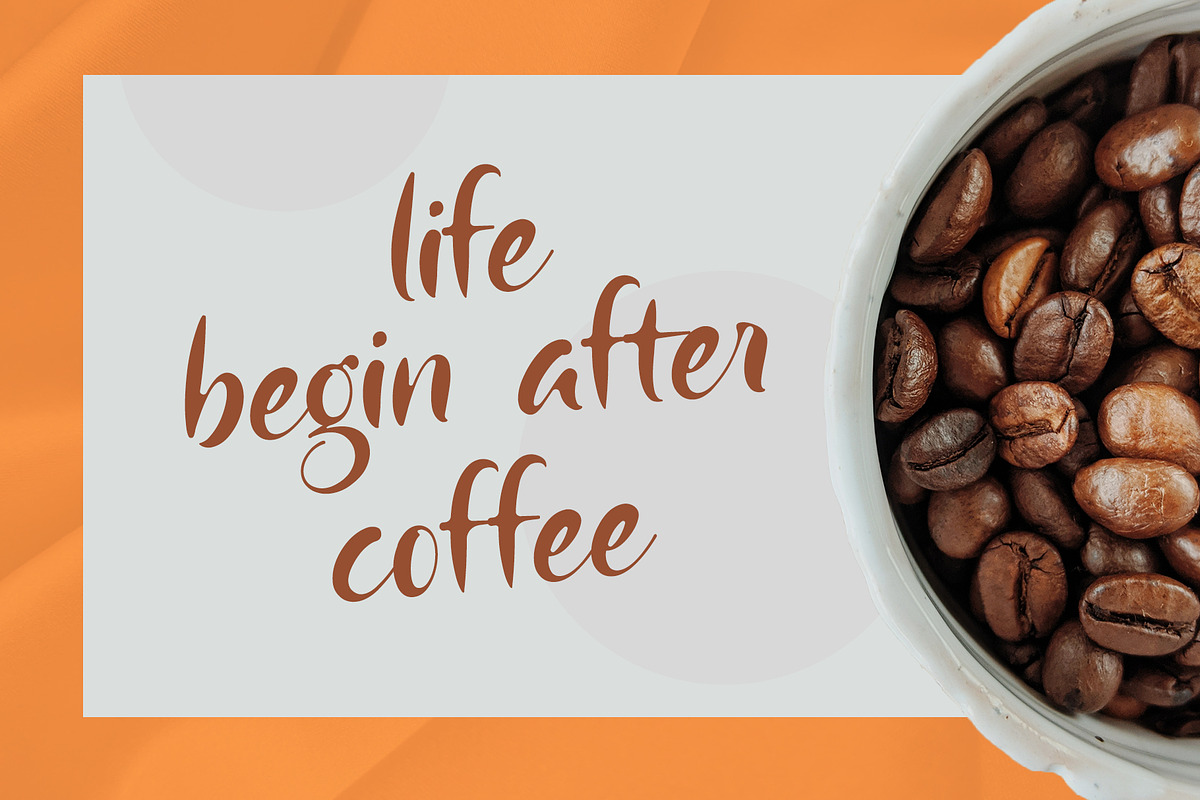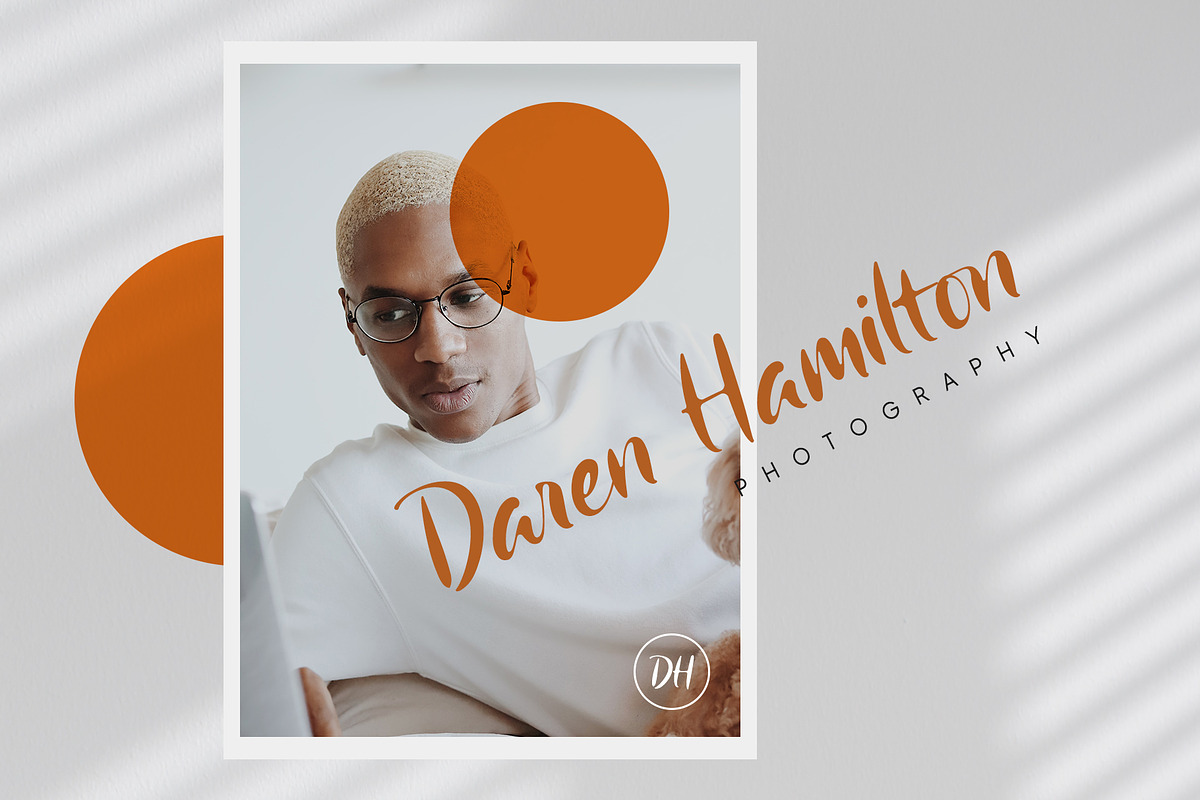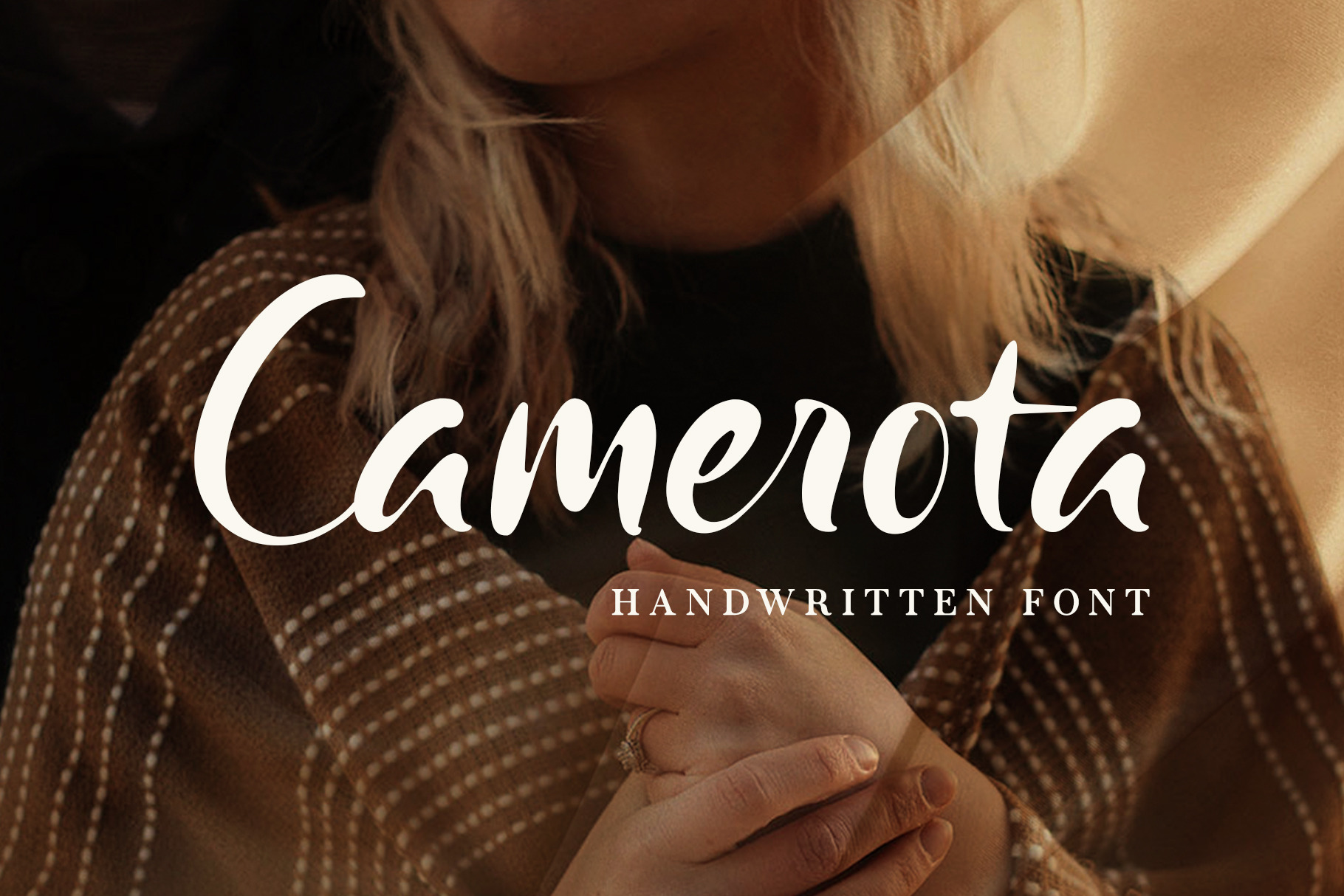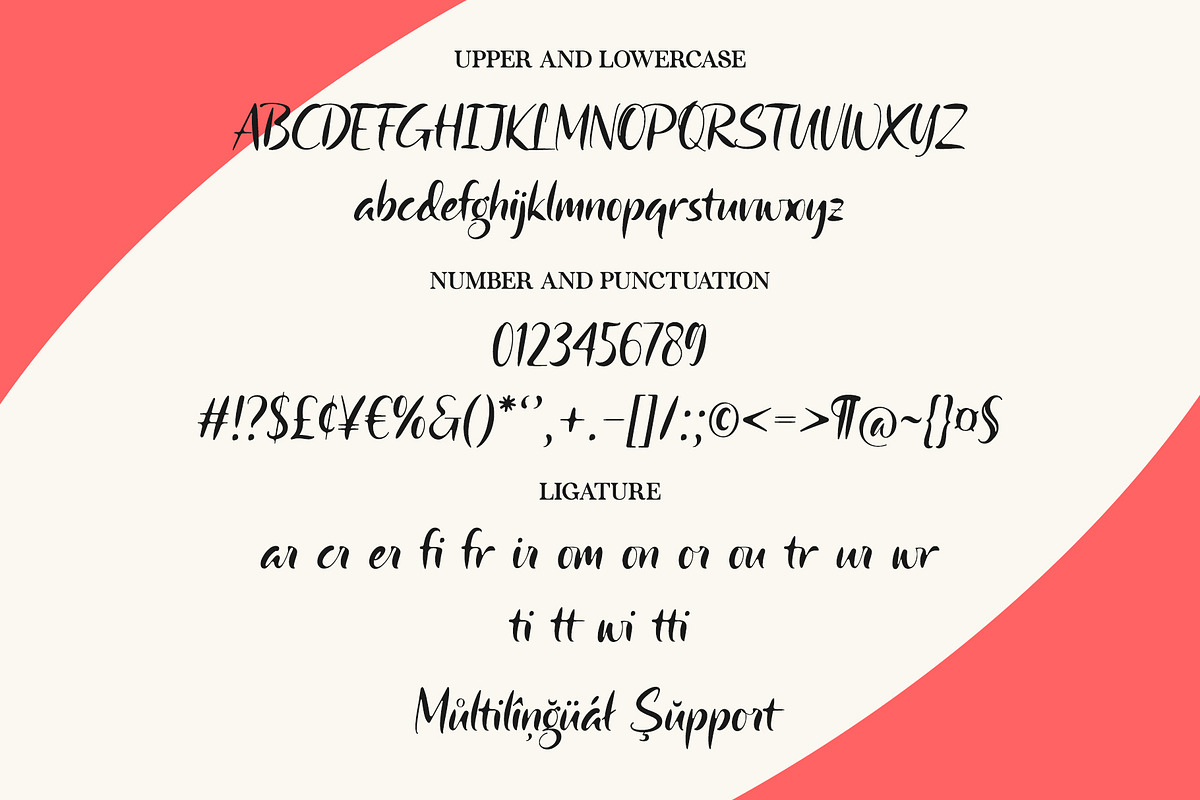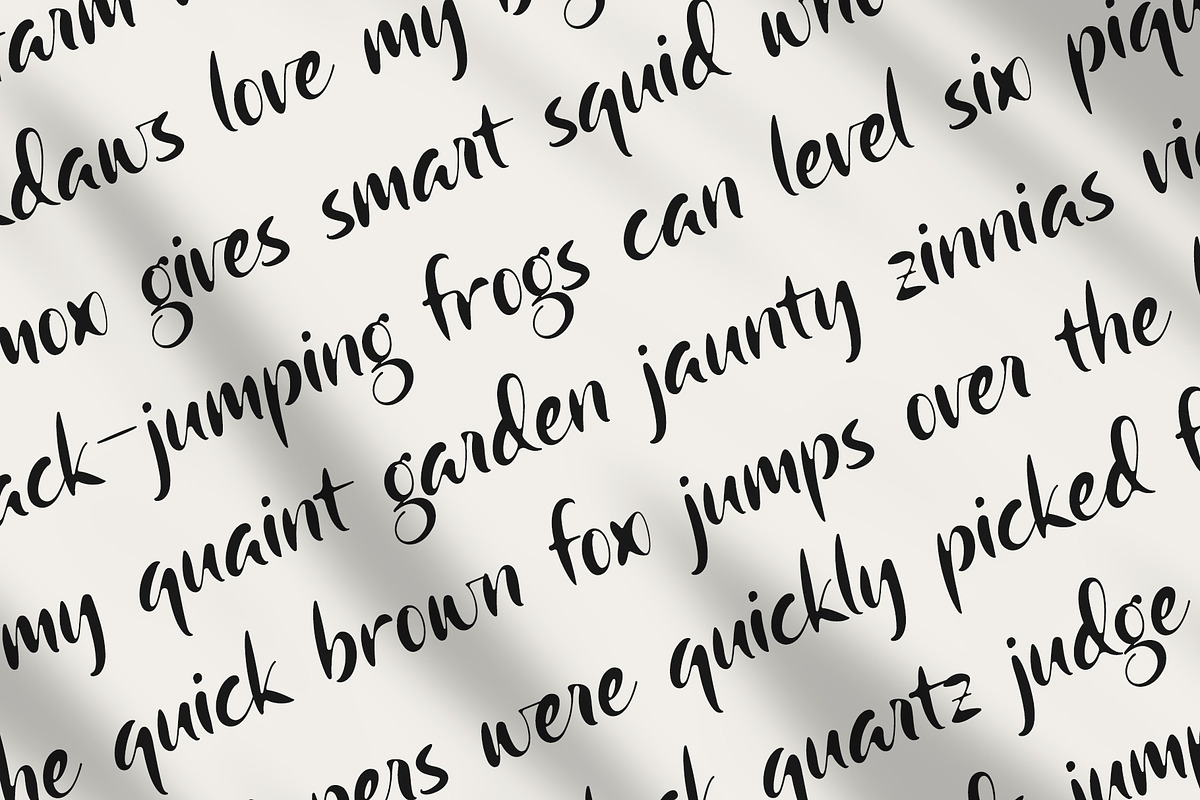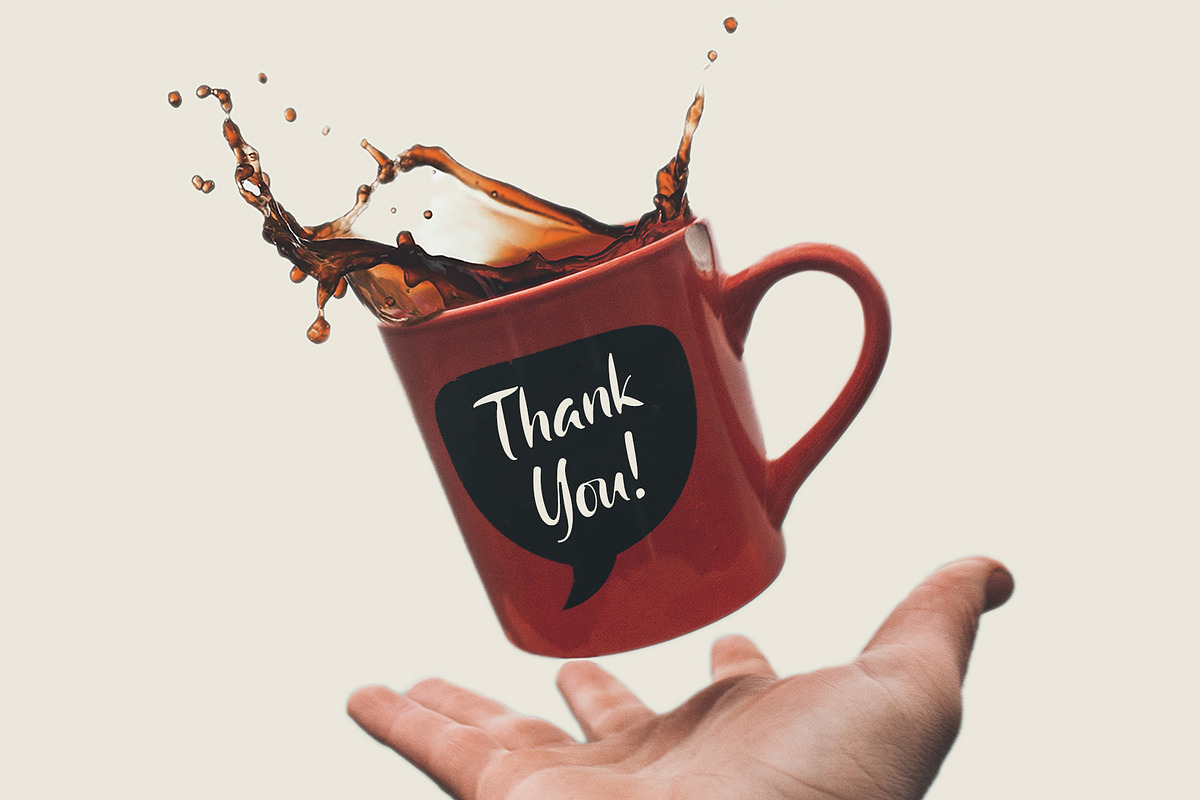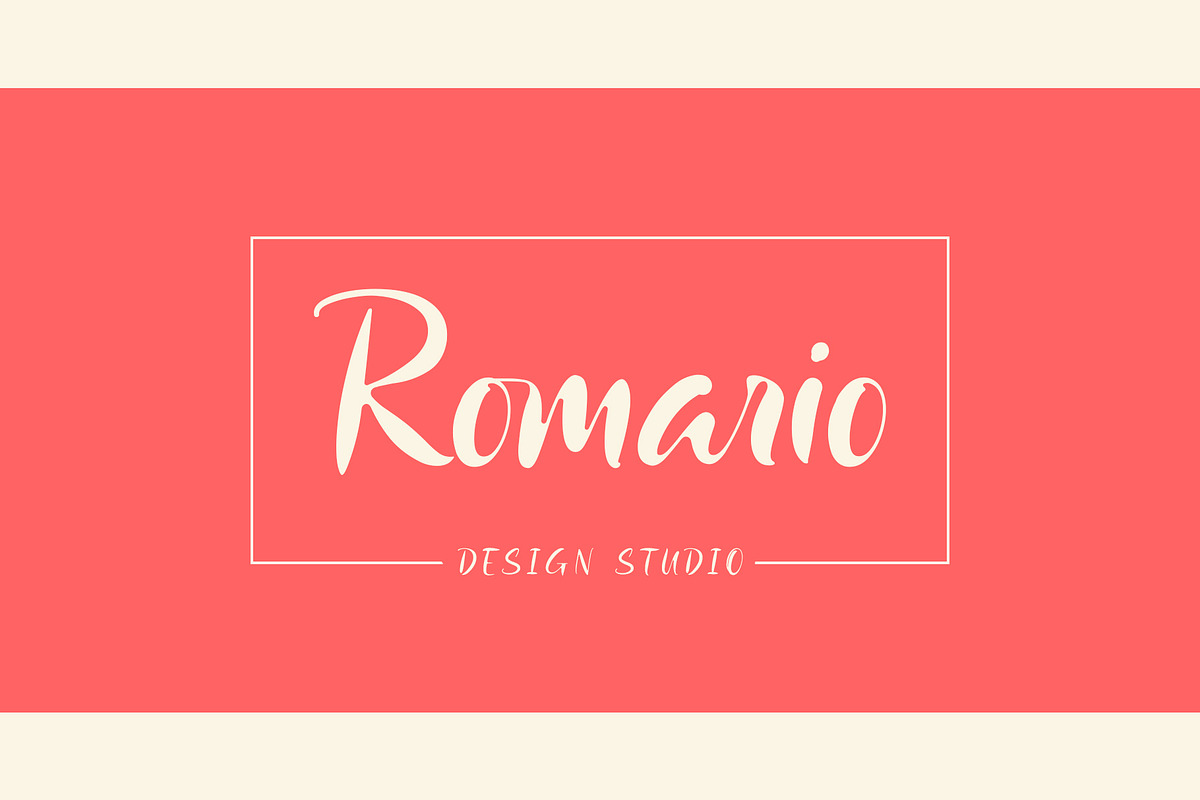
Camerota | Handwritten Font
Camerota is a relaxed handwritten font. It’s perfect for branding, stationery design, social media, packaging, magazine layout, prints, and more.